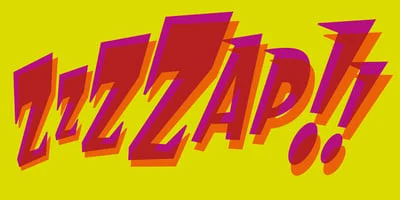
Space Cadet Font is perfect for aerospace training academy branding, space exploration educational materials, astronaut recruitment campaigns, science fiction gaming interfaces, futuristic technology presentations, space camp promotional graphics, astronomical observatory communications, rocket launch event signage, interstellar mission documentation, and cutting-edge space industry marketing.
What makes Space Cadet Font so exciting is its extraordinary ability to capture the disciplined precision and pioneering spirit of space exploration through systematically engineered letterforms that seem forged in the same high-tech facilities that create spacecraft capable of carrying humanity beyond Earth's atmosphere and into the infinite frontier of space. This font embodies the essence of astronaut training and space exploration excellence, featuring precisely calibrated characters that appear designed according to the exacting standards that ensure mission success in the unforgiving environment of outer space. The systematically refined letter shapes create an atmosphere of technological mastery and exploratory courage, making every word feel like it carries the authority of space agencies and the promise of humanity's greatest adventure among the stars.
The Space Cadet Font family includes Ultra Light, Light, Regular, Medium, Bold, and Heavy weights, along with futuristic variations and space-themed decorative elements. Each style maintains the font's distinctive space exploration character while offering versatility for different aerospace applications, from subtle technical documentation to commanding mission headlines that announce breakthrough achievements in space technology and human spaceflight.
This pioneering typeface brings authentic space exploration aesthetics to contemporary design projects. The Space Cadet Font offers designers an invaluable resource for creating memorable brand identities that communicate innovation, precision, and space exploration expertise. Whether you're developing aerospace education branding, designing space technology materials, or creating astronaut training communications, this font delivers unmatched technological credibility and space exploration authenticity.
The expertly engineered letterforms in Space Cadet Font feature optimal geometric structures and systematic spacing that ensure perfect performance in mission-critical applications while expressing the disciplined training and systematic approach that define successful space exploration programs. Each character has been designed to maintain maximum clarity while conveying the technological excellence and exploratory courage that separate space professionals from earthbound alternatives. The font's distinctive personality makes it ideal for applications requiring genuine space exploration authority and aerospace industry credibility.
Space industry professionals appreciate how Space Cadet Font effortlessly communicates expertise, technological precision, and space exploration excellence while appealing to future astronauts and space enthusiasts seeking authentic training experiences that honor both the scientific rigor and adventurous spirit that define humanity's quest to explore the cosmos. The comprehensive character set includes aerospace symbols, space mission indicators, astronomical elements, and extensive international language support, ensuring global compatibility while maintaining its distinctive space cadet identity. This makes it an invaluable resource for space agencies, aerospace companies, educational institutions, and any organization seeking typography that embodies the fundamental values of space exploration, scientific precision, and the kind of disciplined courage that enables ordinary humans to become extraordinary space cadets who dedicate their lives to pushing the boundaries of human knowledge and capability while preparing for the ultimate adventure of traveling beyond Earth to explore the infinite mysteries that await among the stars.